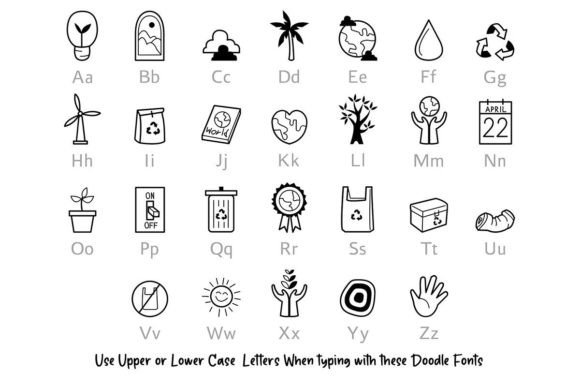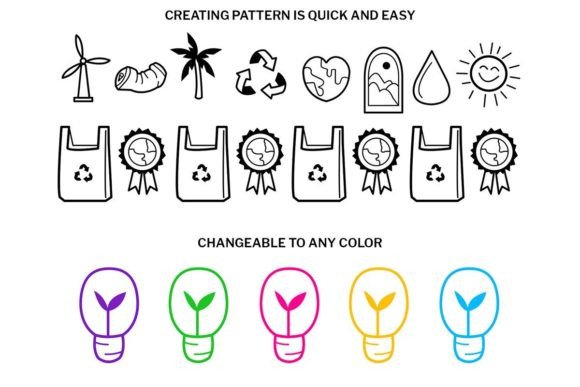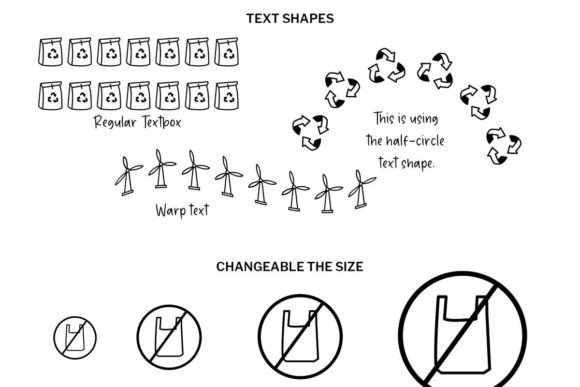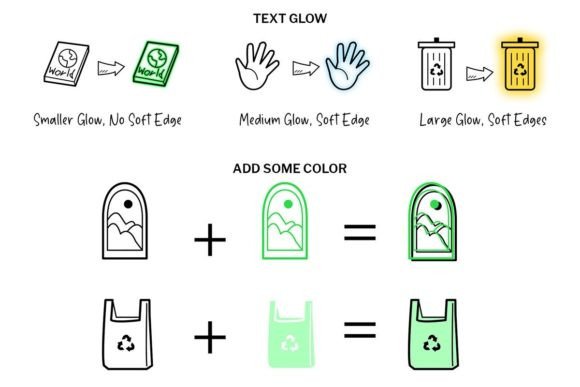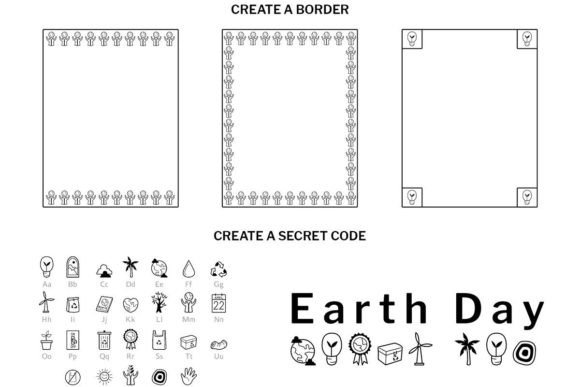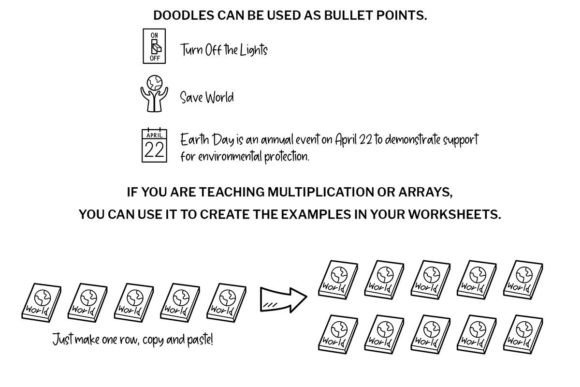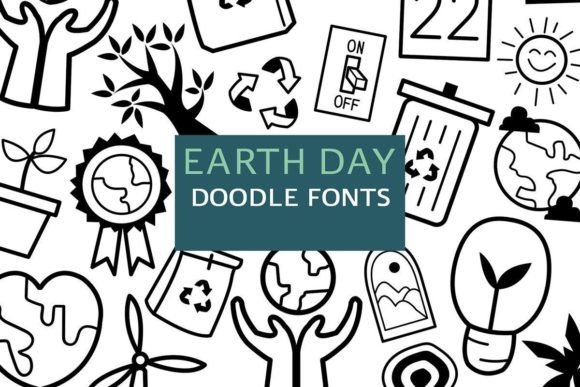
Earth Day Doodle Font: A Fun and Useful Dingbats Font for Your Creative Projects
As a designer or crafter, you’re always on the lookout for unique and creative elements to add to your projects. One way to make your work stand out is by using a special font that conveys a message or theme. In celebration of Earth Day, we’re excited to introduce the Earth Day Doodle Font – a fun and useful dingbats font that’s perfect for your eco-friendly projects.
What is Earth Day Doodle Font?
Earth Day Doodle Font is a dingbats font that features a collection of Earth Day-themed illustrations, including leaves, flowers, animals, and more. The font is designed to be fun, playful, and easy to use, making it perfect for a variety of projects, from crafts and DIY tutorials to social media graphics and website designs.
Why Use Earth Day Doodle Font?
There are many reasons why you should consider using Earth Day Doodle Font in your projects. Here are just a few:
• Unique and eye-catching: The Earth Day Doodle Font is a one-of-a-kind font that’s sure to grab attention. The illustrations are colorful, fun, and engaging, making them perfect for projects that need a little extra something.
• Versatile: Earth Day Doodle Font can be used in a wide range of projects, from digital designs to print materials. It’s perfect for Earth Day-themed projects, but it’s also versatile enough to use in other eco-friendly or nature-inspired designs.
• Fun and playful: The illustrations in the Earth Day Doodle Font are designed to be fun and playful, making them perfect for projects that need a lighthearted touch.
Ideas for Using Earth Day Doodle Font
Here are a few ideas for using Earth Day Doodle Font in your projects:
• Earth Day social media graphics: Create eye-catching social media graphics to celebrate Earth Day. Use the font to add illustrations of leaves, flowers, and animals to your posts.
• Eco-friendly crafts: Use the Earth Day Doodle Font to add a fun and eco-friendly touch to your crafts, such as handmade cards, gift tags, and DIY tutorials.
• Nature-inspired website designs: Add a touch of nature to your website designs with the Earth Day Doodle Font. Use the illustrations to create a fun and playful design that’s perfect for eco-friendly or outdoor-themed websites.
• Environmental posters: Create eye-catching posters to raise awareness about environmental issues. The Earth Day Doodle Font is perfect for adding illustrations that drive home your message.
The Earth Day Doodle Font is a fun and useful dingbats font that’s perfect for designers and crafters who want to add a touch of eco-friendliness to their projects. With its unique and eye-catching illustrations, ease of use, and versatility, this font is sure to become a favorite in your design arsenal. So why not give it a try? Download the Earth Day Doodle Font today and see the difference it can make in your designs.
Earth Day Doodle is a useful and fun dingbats font. Add it confidently to your projects, and you will love the results.